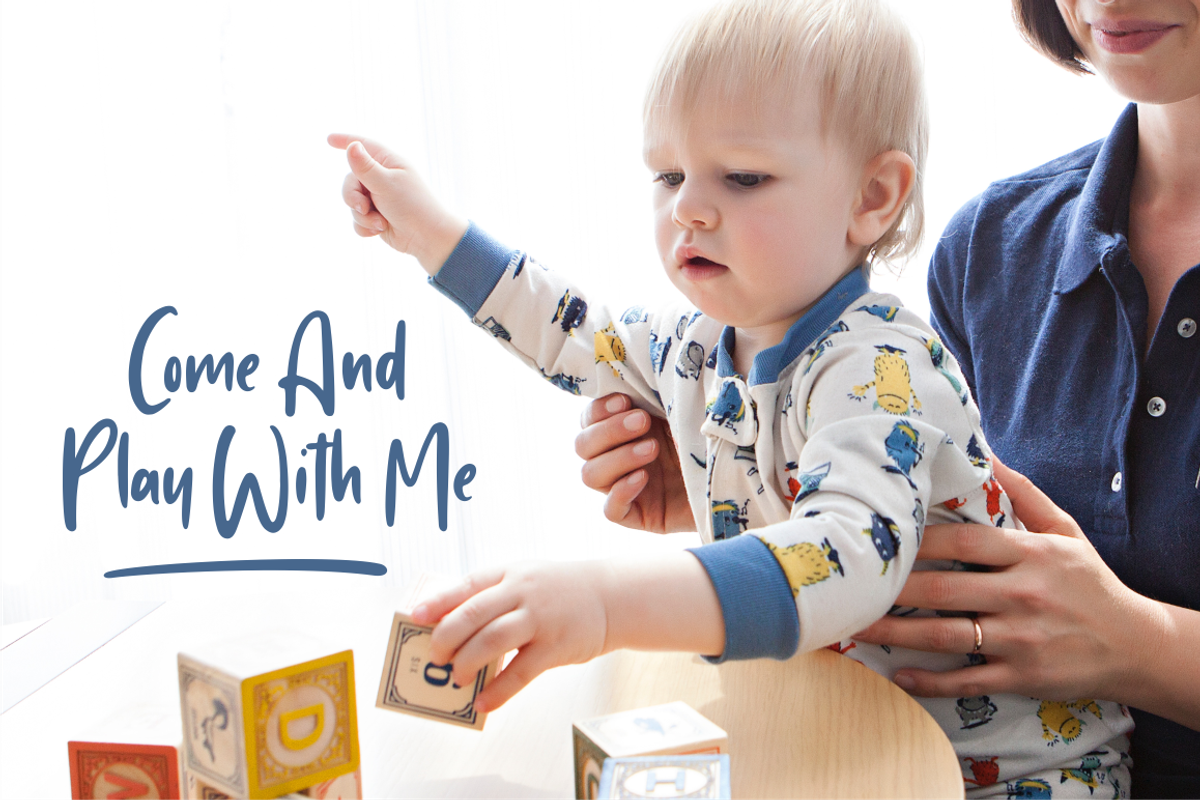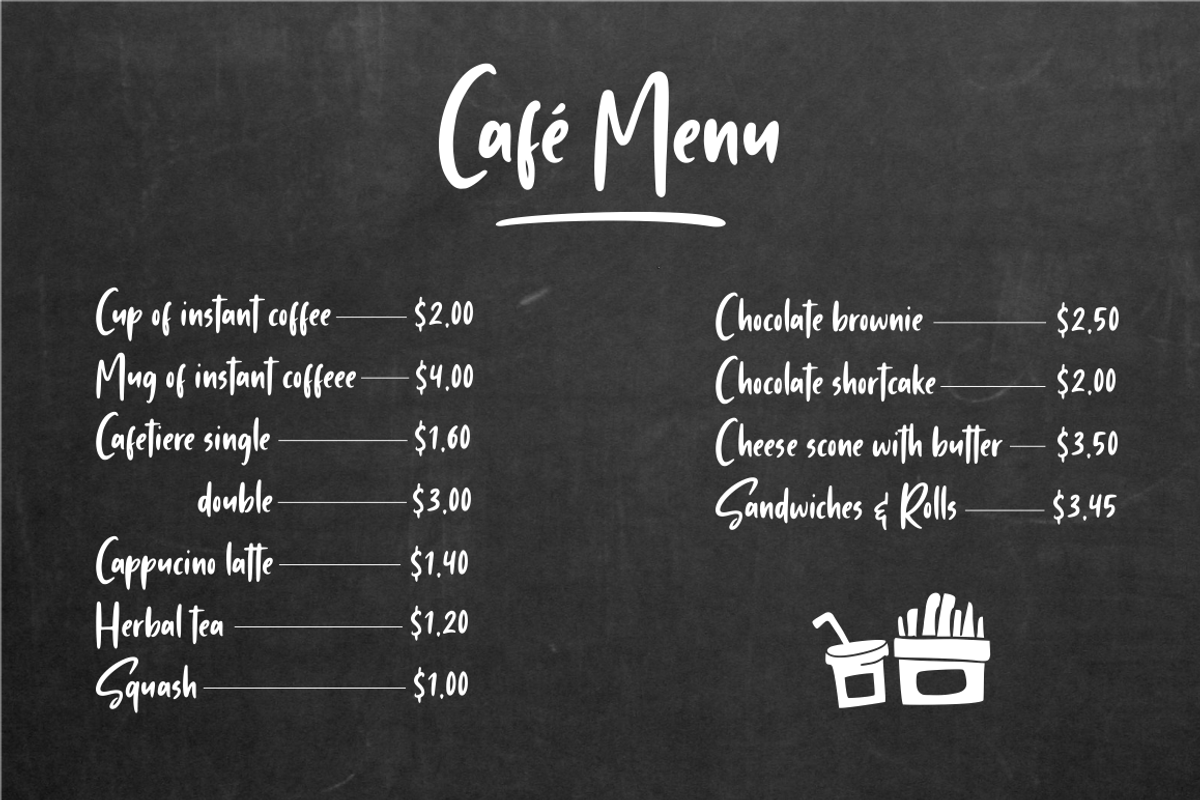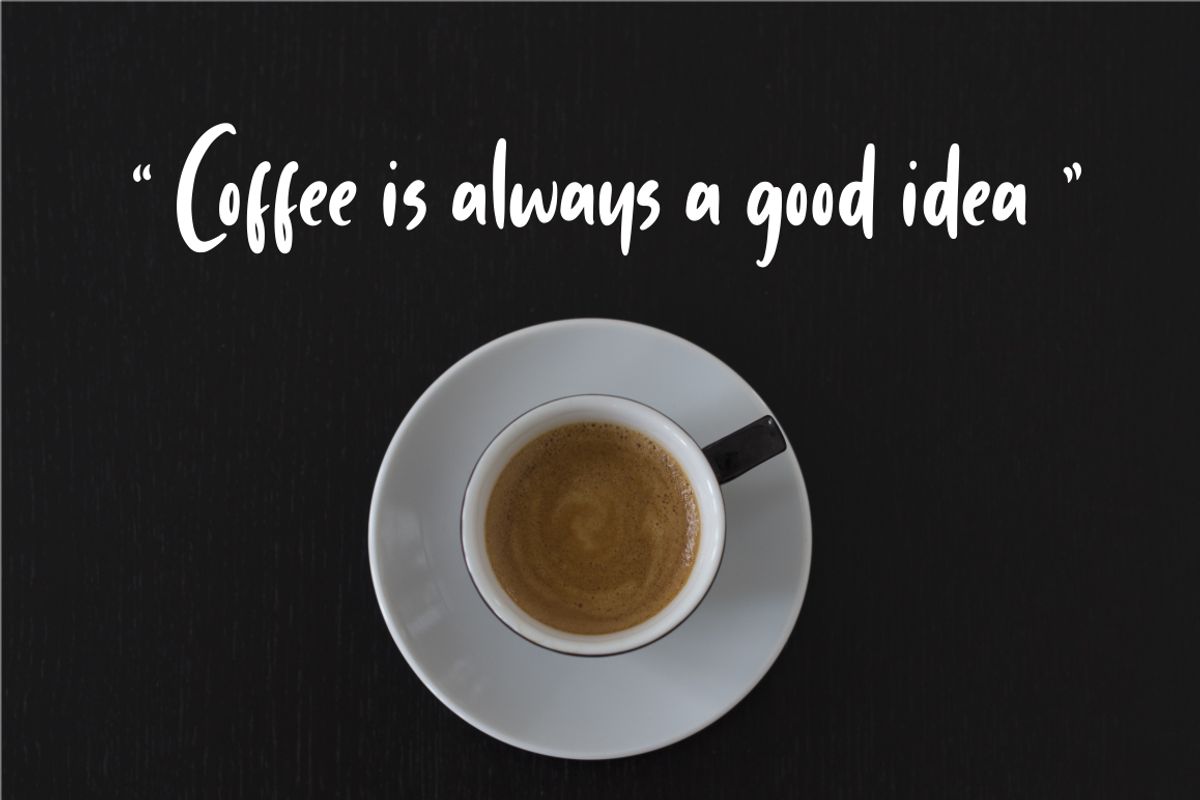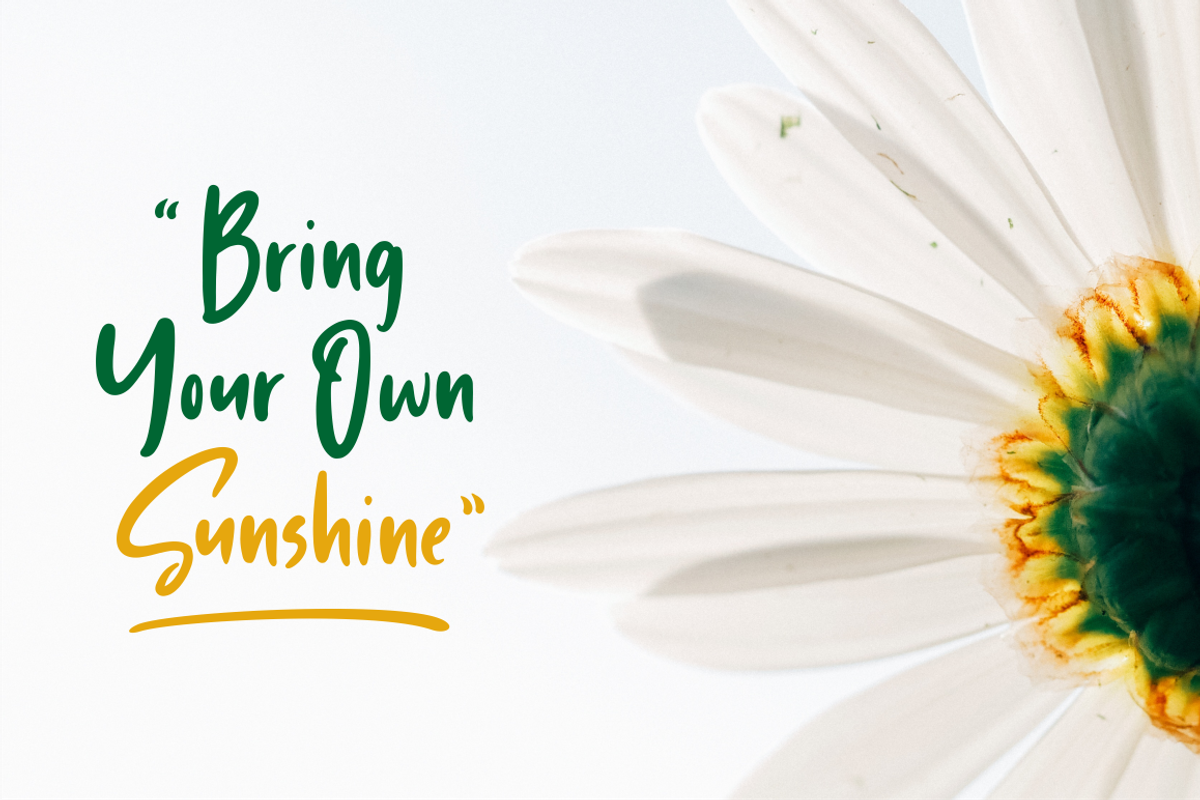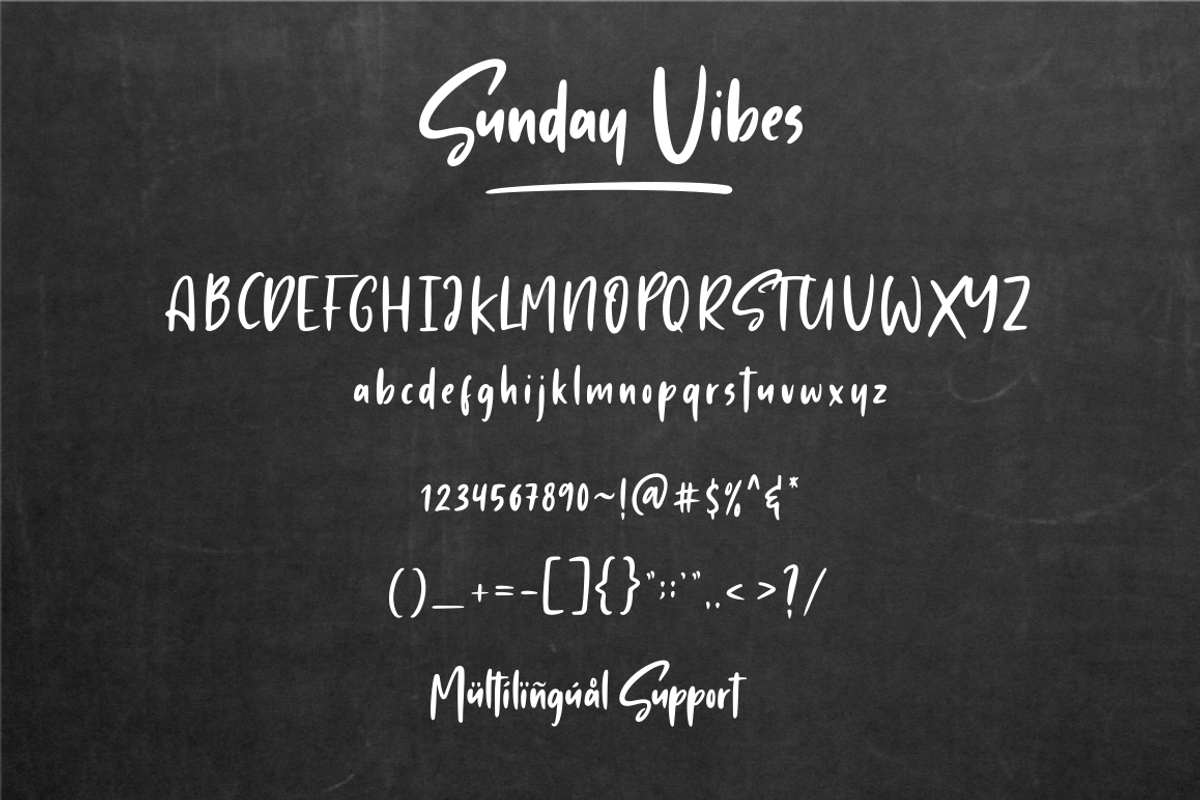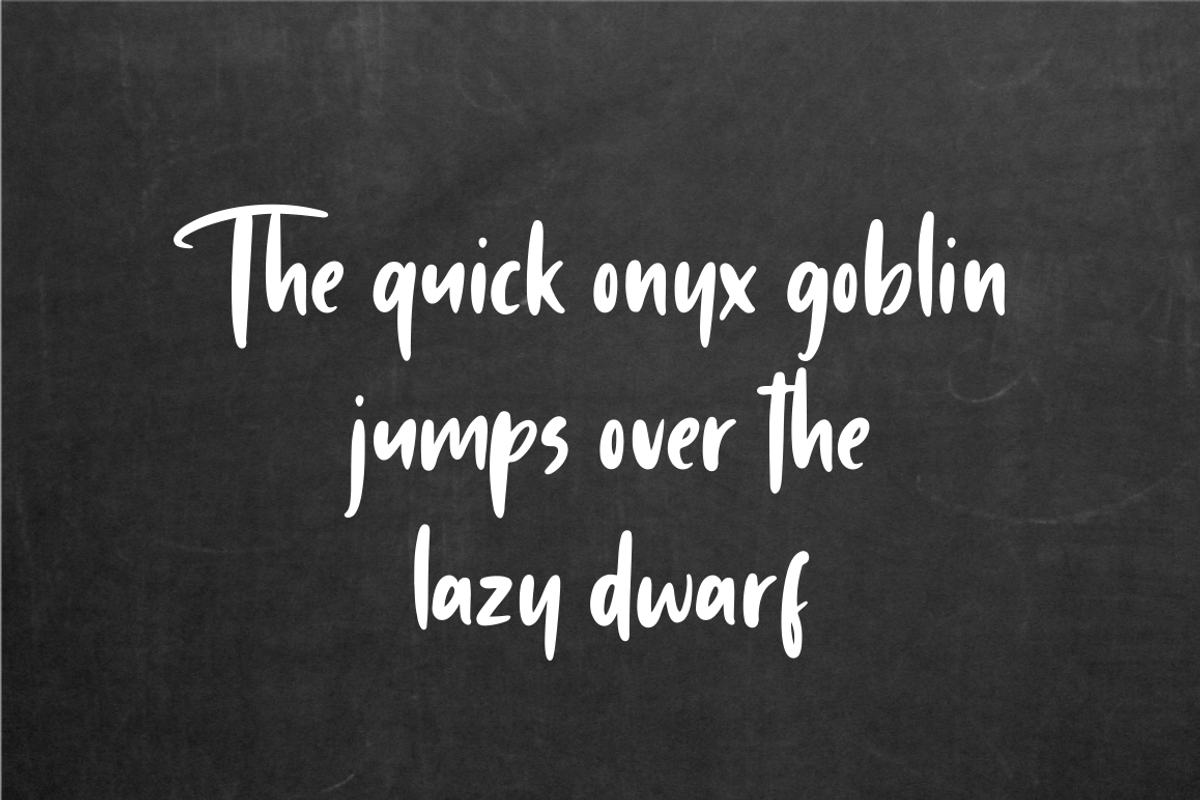
Sunday Vibes - Playful Font
Introducing Sunday Vibes – a new modern & fresh handlettering font,make this font looks natural, modern, and perfect for any awesome projects.
Sunday Vibes is perfect for many different project such as logos & branding, invitation, stationery, wedding designs, social media posts, advertisements, product packaging, product designs, label, photography, watermark, special events or anything.
Sunday Vibes - Playful Font by Sronstudio fits naturally into Branding, posters, packaging, typography.